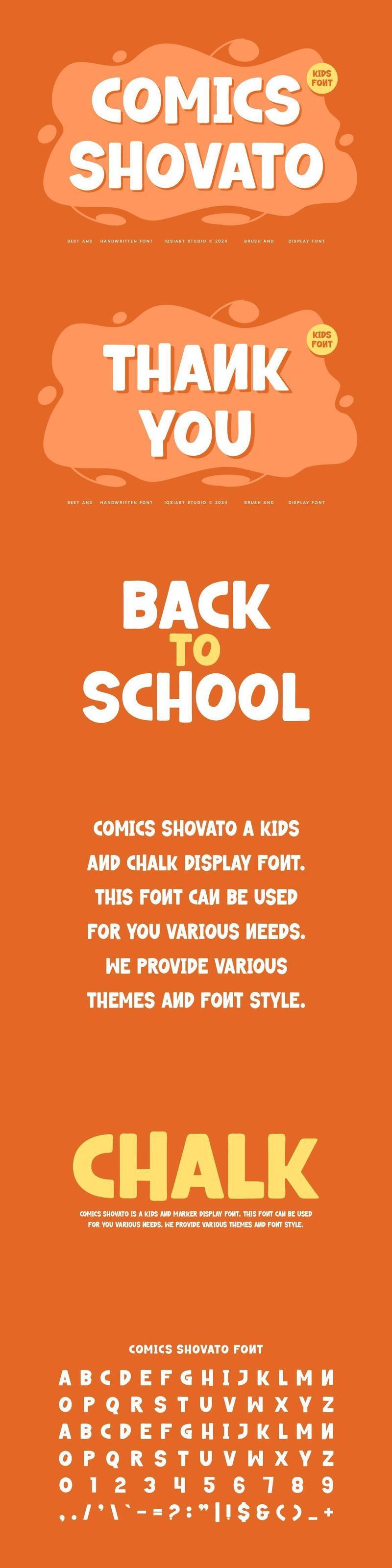
Comics Shovato – Paint & Chalk Font GC3QBM4
**Comics Shovato Font** is a best and authentic display font.
This font can be used for your various needs.